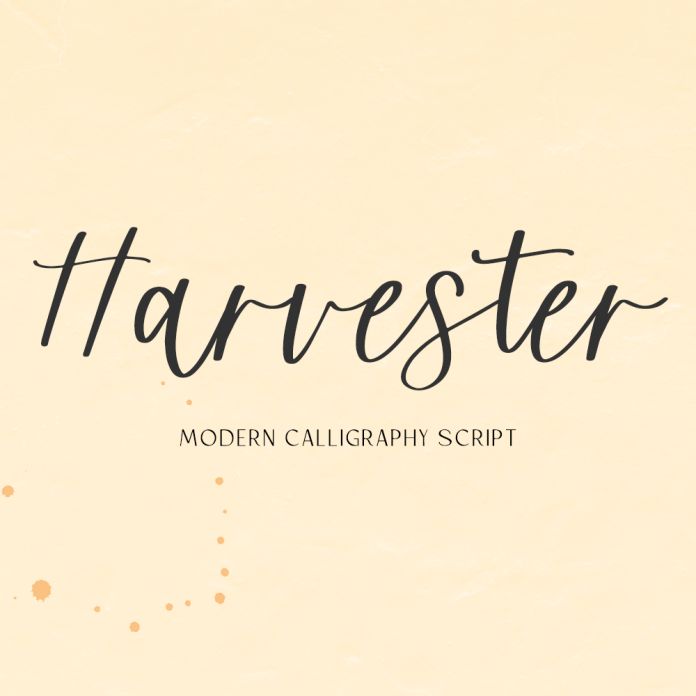
Introducing Harvester, a modern calligraphy script.
Harvester is best for:
- feminine, crafty projects with your Cricut or Silhouette machine, or your SVG design business